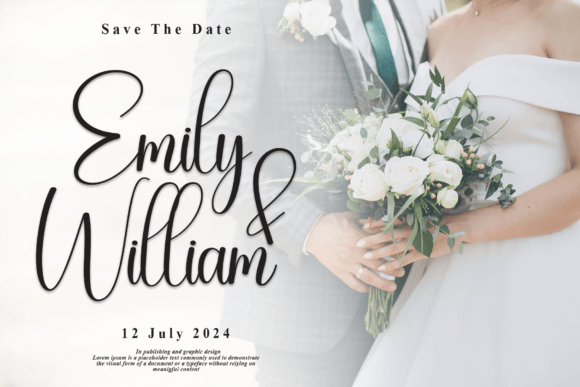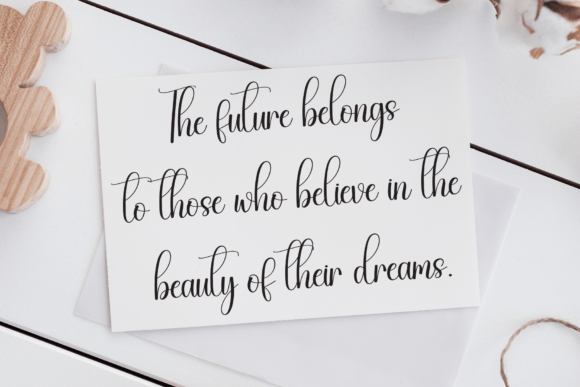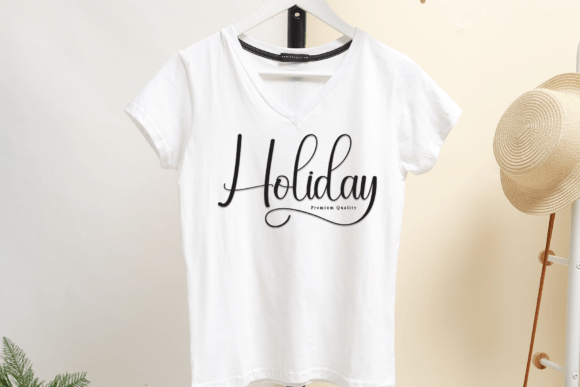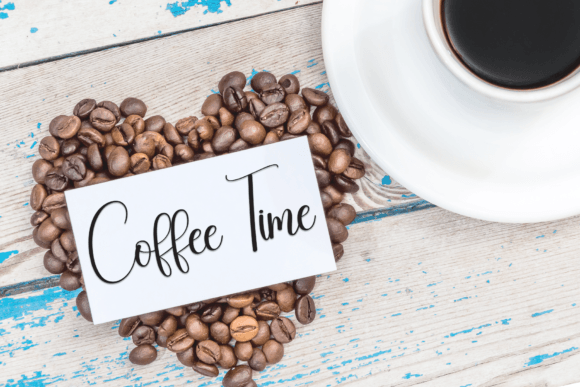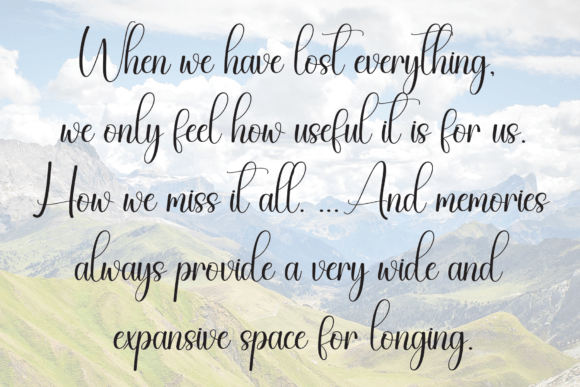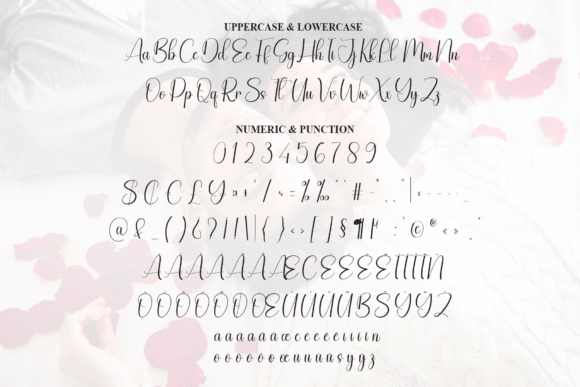
The Darling Font: A Casual Handwritten Gem for Your Creative Projects
I’ll never forget the time I was working on a branding project for a cozy coffee shop. I had the logo, the color palette, and the overall aesthetic nailed down, but something was missing. It wasn’t until I stumbled upon the Darling font that the entire design came together. The casual, handwritten style added a warm and inviting touch that perfectly captured the coffee shop’s relaxed vibe. If you’re a designer, crafter, or creative hobbyist looking for a font that exudes friendliness and approachability, you’re in luck! 🎉
An Honest Review of Darling Font
What I Love About Darling Font
- ✨ Natural, flowing strokes that give it a relaxed and effortless feel
- ✅ Perfect for personal projects, social media, and invitations
- 💕 The font’s easygoing style adds warmth and authenticity to any design
- 🎨 Highly versatile and can be used for a wide range of creative applications
While Darling font is an excellent choice for many projects, there are a few things to keep in mind:
- ⚠️ It may not be the best choice for very formal or corporate designs, as it can come across as too casual
- 🤔 Some of the letters may be a bit too connected for certain design applications, such as headings or titles
- Experiment with different OpenType features, such as ligatures and stylistic alternates, to add some personality to your design
The Story Behind Darling Font
Darling font was designed by a talented typographer who wanted to create a font that captured the essence of a relaxed, friendly vibe. Inspired by the flowing strokes of handwritten letters, Darling font is perfect for designers who want to add a touch of warmth and authenticity to their designs. Whether you’re working on a personal project or a client’s design, Darling font is sure to bring a smile to your face.
Q: What is Darling font best used for?
A: Darling font is ideal for personal projects, social media, and invitations. It’s perfect for designs that need a relaxed and friendly vibe.
Q: Is Darling font available in different weights or styles?
A: Darling font comes in a range of weights and styles, making it versatile and adaptable to different design applications.